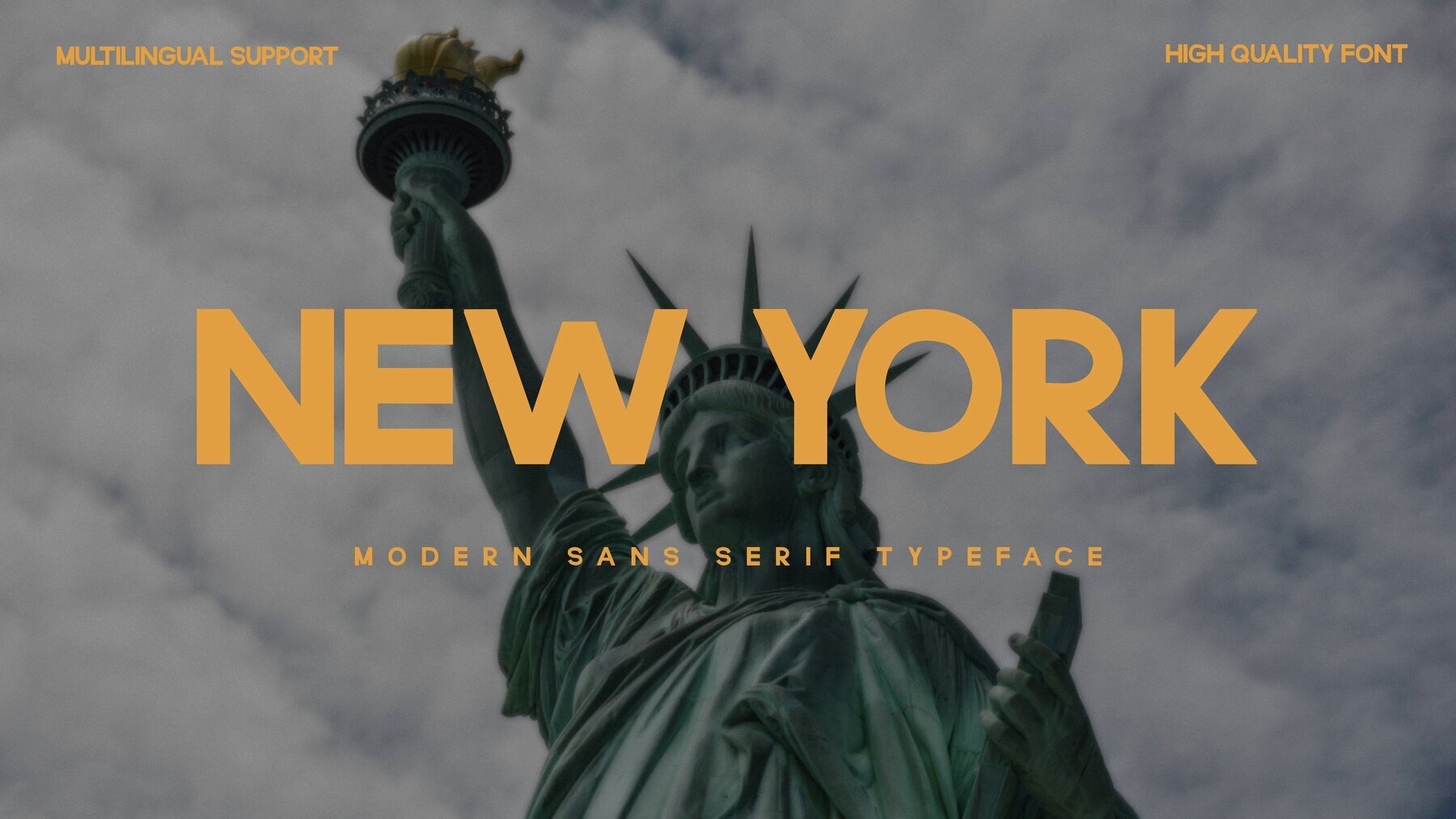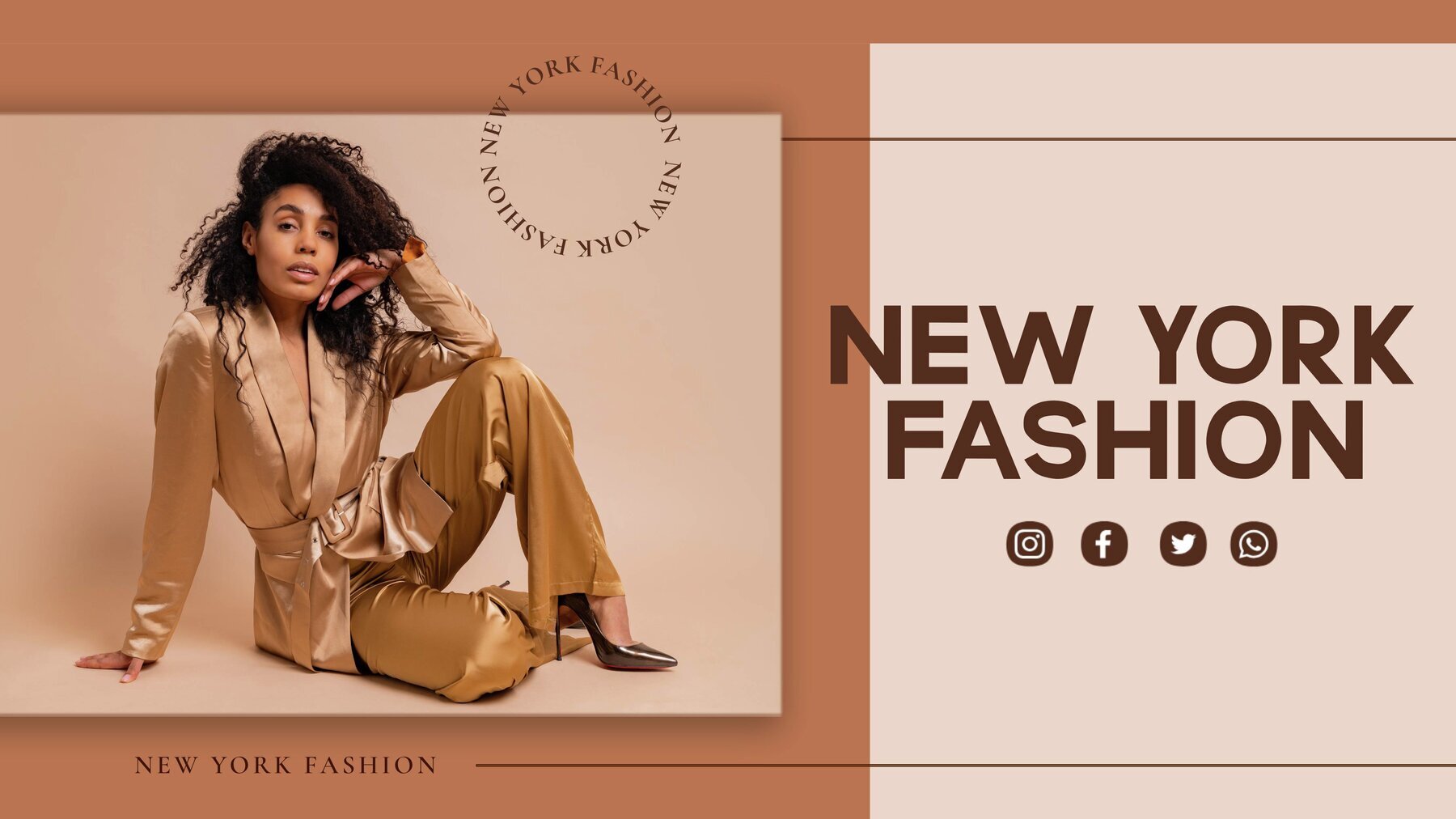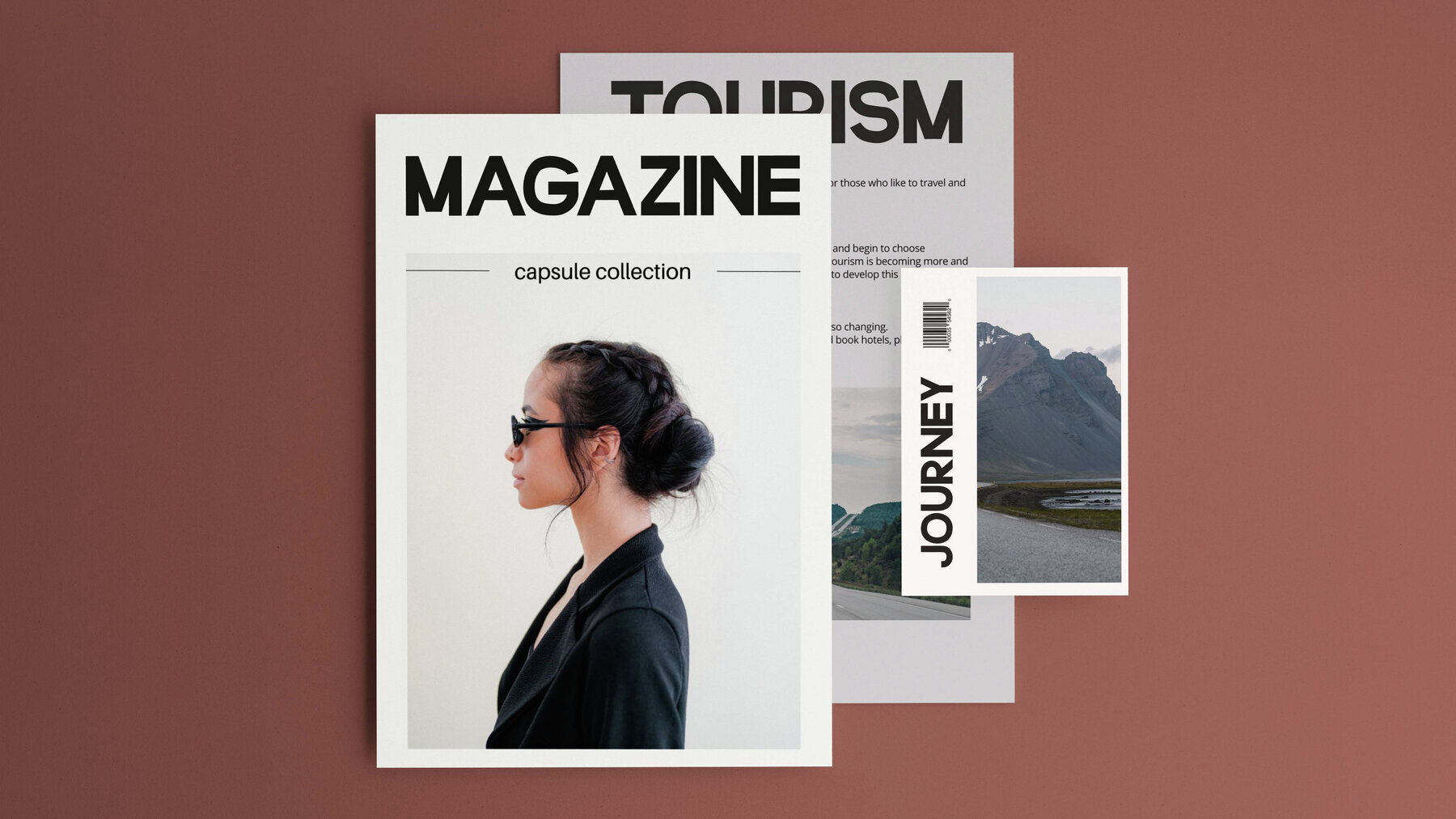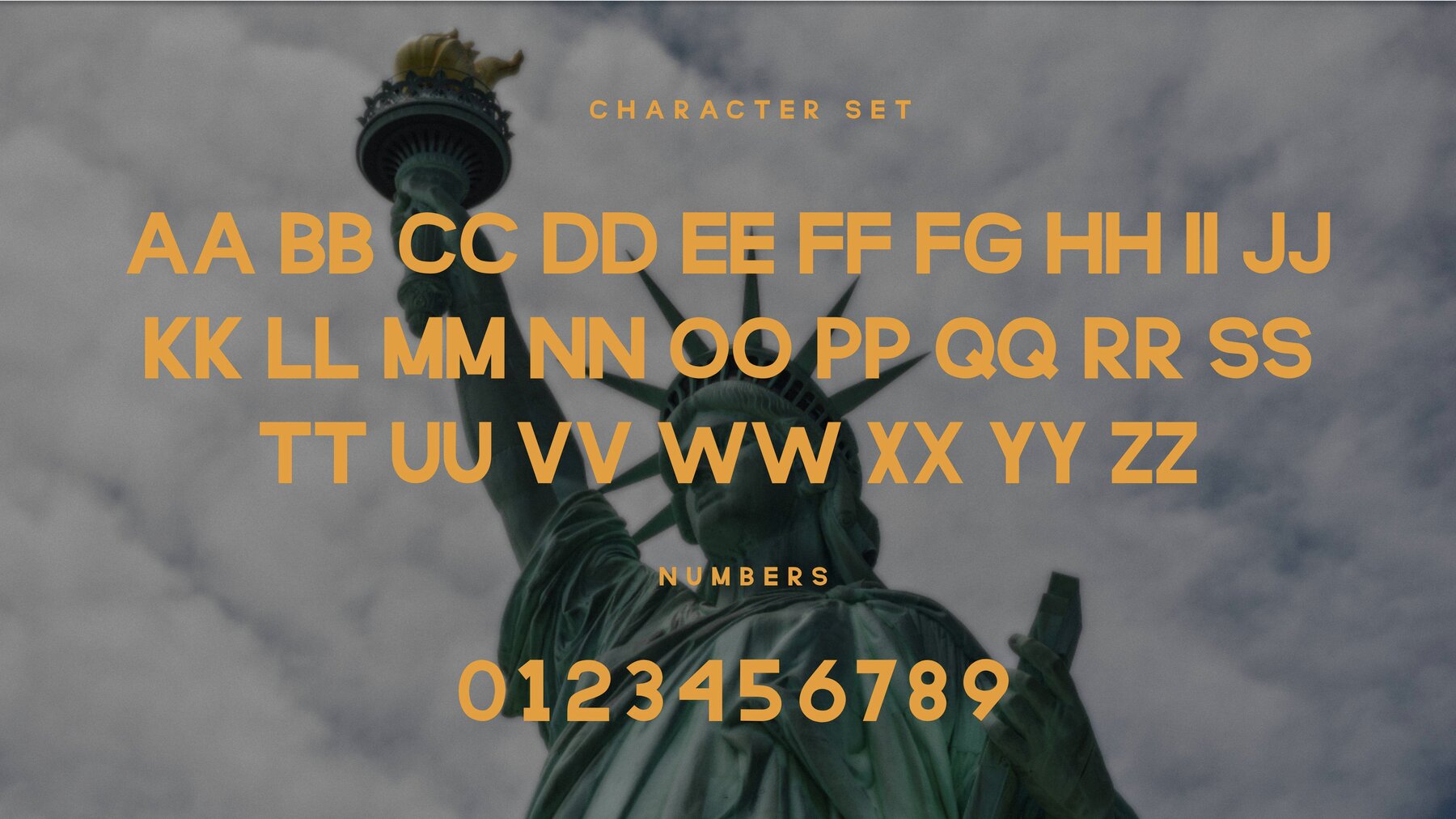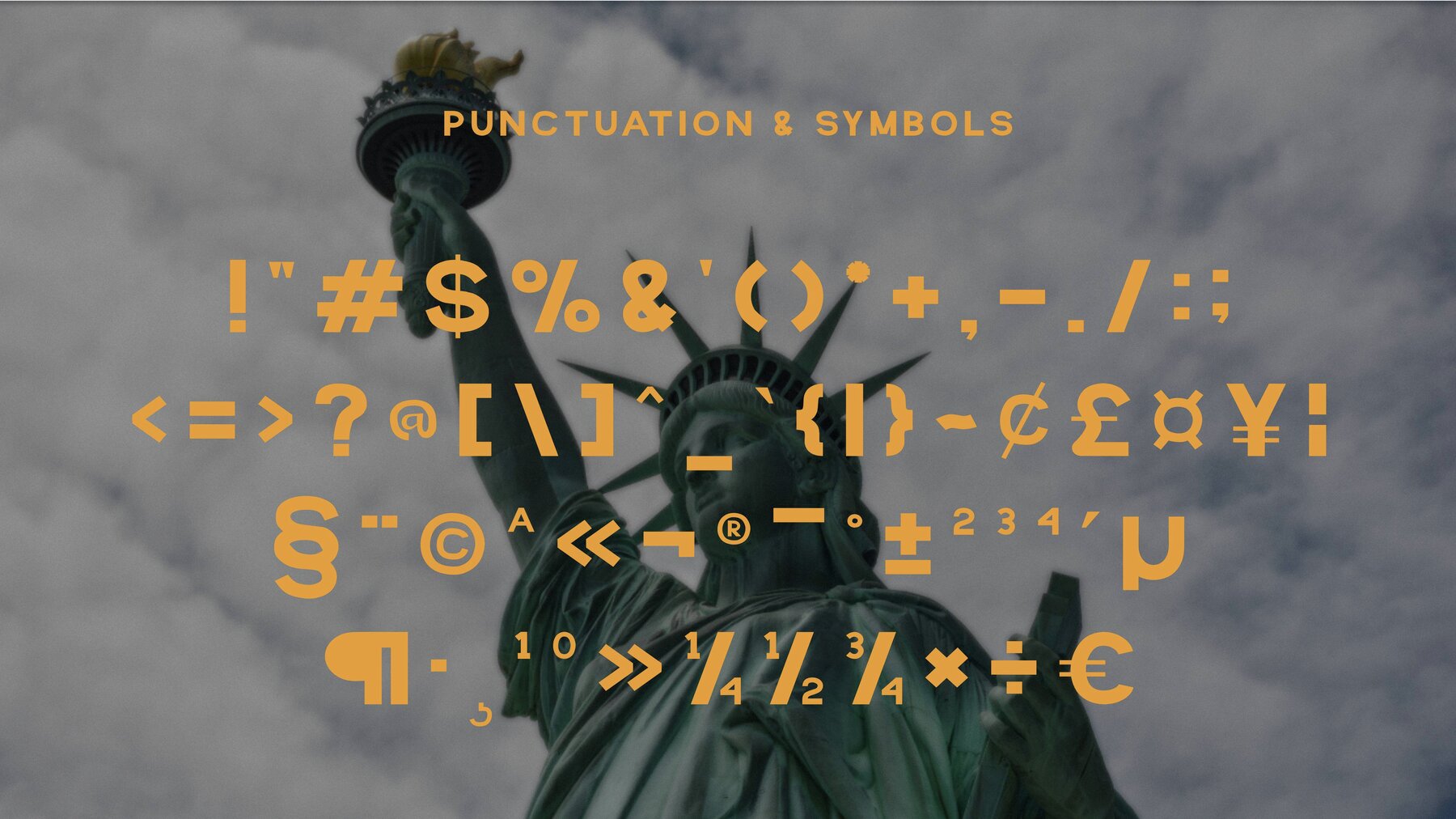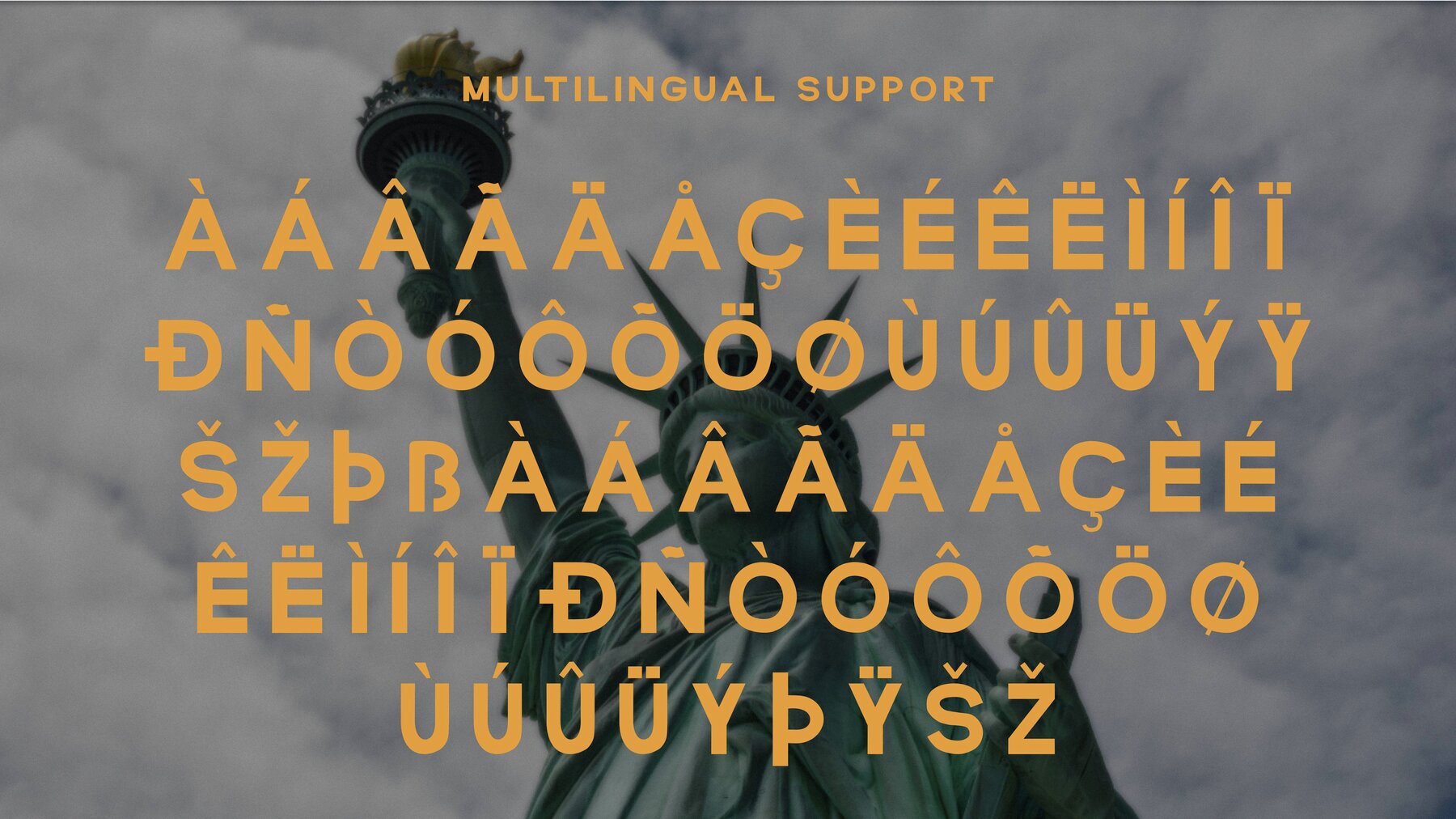
New York Font
New York is a classic sans serif typeface that exudes a timeless elegance, blending modernity with a touch of sophistication. Designed with clean lines and a geometric structure, it offers excellent legibility at various sizes, making it ideal for both display and body text. The font features a balanced character set, characterized by its subtle curves and straight edges, creating a harmonious and versatile aesthetic. With its roots in urban design, New York captures the essence of the bustling city, evoking a sense of contemporary style and professionalism. The simplicity of its forms allows it to adapt seamlessly across different mediums, whether in print or digital formats. Perfect for branding, editorial layouts, and signage, New York stands out as a reliable choice for conveying clarity and modernity in any project. Elevate your design projects with the New York font! Its modern elegance and exceptional legibility make it the perfect choice for any application. Whether you're working on branding, editorial content, or signage, New York will bring a touch of sophistication to your work. Download New York today and experience the perfect blend of style and clarity!